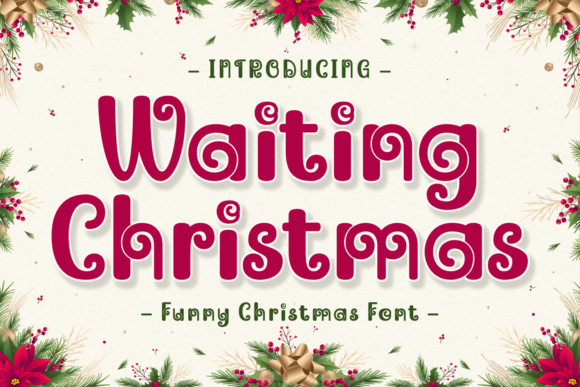
Introducing Waiting Christmas Font, the perfect addition to your font collection. Created by the talented Wankriss, this decorative font is a true masterpiece that will make your designs come alive during the holiday season and beyond.
With its exquisite and eye-catching design, Waiting Christmas Font is the ultimate choice for anyone seeking a font that stands out from the crowd. Its unique style captures the essence of the festive season, making it the ideal companion for all your creative endeavors.
Whether you're designing Christmas cards, creating stunning social media graphics, or sprucing up your website with a touch of holiday cheer, Waiting Christmas Font is the secret ingredient that will transform your project into a visual masterpiece. Its captivating curves and intricate details will instantly captivate your audience, leaving a lasting impression.
But this font is not just for Christmas - its versatility knows no bounds. Waiting Christmas Font is a valuable asset that will elevate any design, regardless of the occasion. Its timeless appeal and artistic flair make it a must-have for designers, marketers, and creatives alike.
Searching for the best font for CD packaging? Look no further. Waiting Christmas Font is the answer to your prayers. Its elegant and stylish composition will enhance the overall look and feel of your CD covers, making them irresistible to potential buyers. Stand out from the competition and leave a lasting impact with this remarkable font.
Featuring a wide range of characters and symbols, Waiting Christmas Font offers endless creative possibilities. Let your imagination run wild as you experiment with different styles, sizes, and colors. From bold headlines to delicate calligraphy, this font can do it all, ensuring that your designs are as unique as you are.
Don't settle for ordinary fonts that fail to evoke emotions. Waiting Christmas Font is here to add that extra touch of magic to your creations. Its enchanting aura will transport your audience into a world of wonder and excitement, leaving them craving for more.
Add a touch of holiday cheer, elegance, and creativity to your designs with Waiting Christmas Font. Your audience deserves the best, and this font delivers nothing short of perfection. Get ready to amaze, inspire, and leave a lasting impression with this extraordinary font.